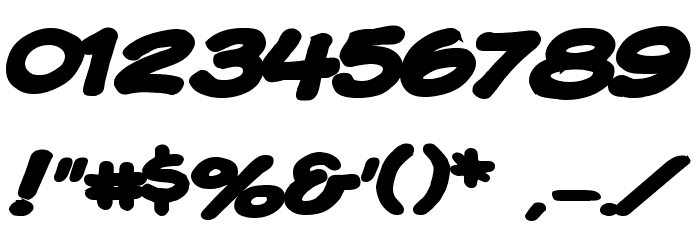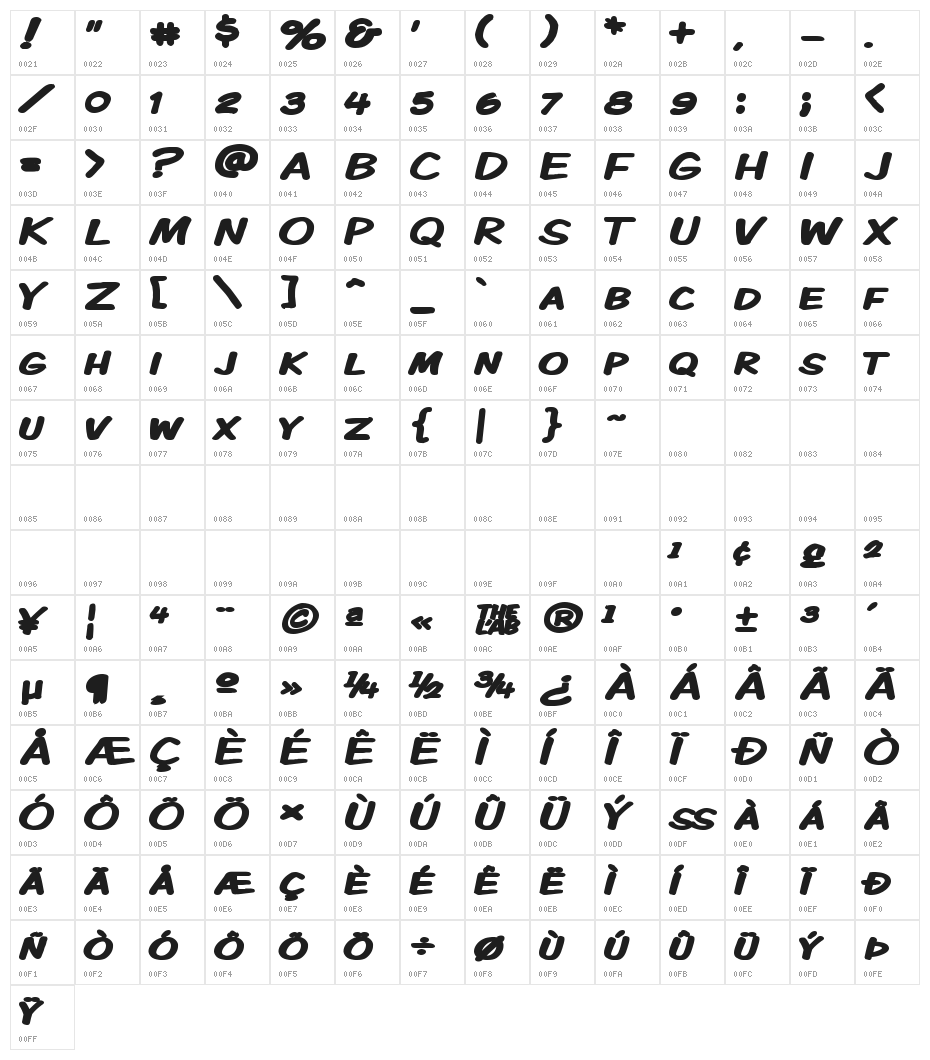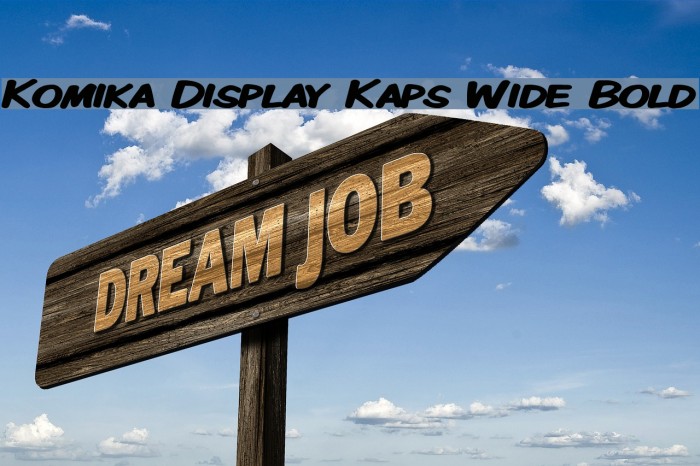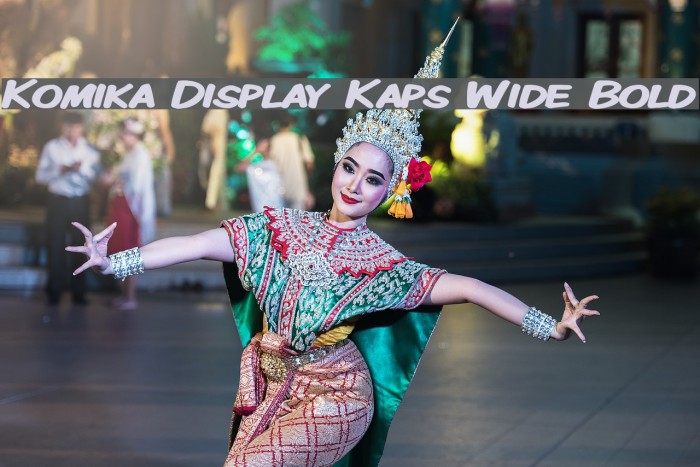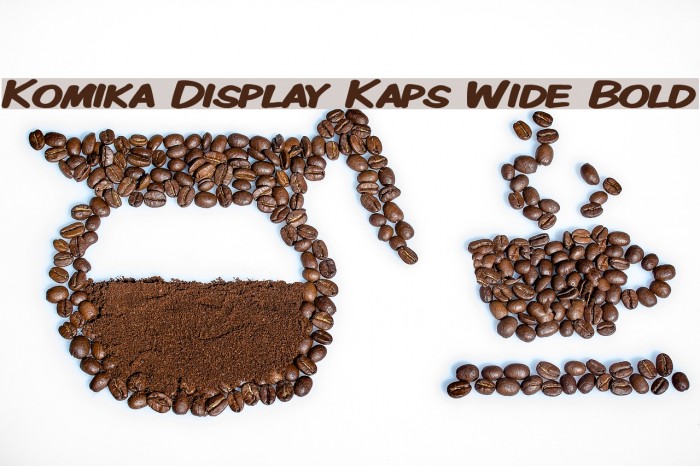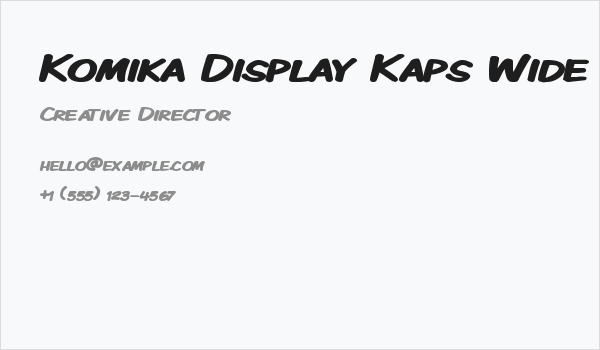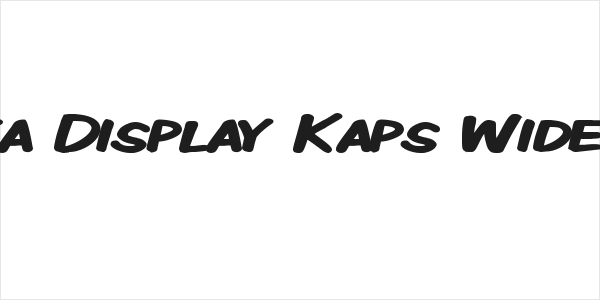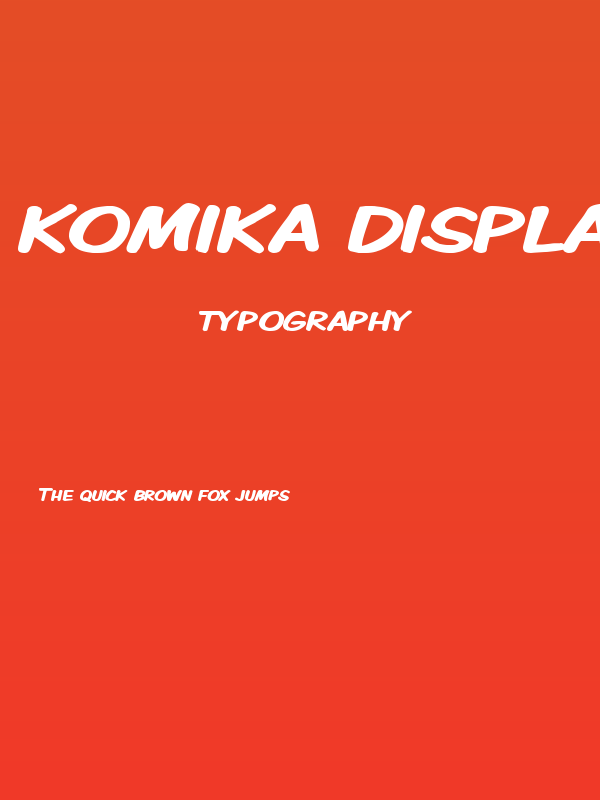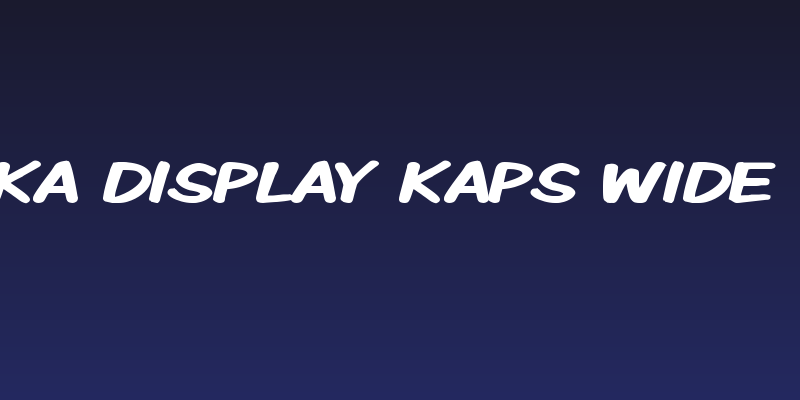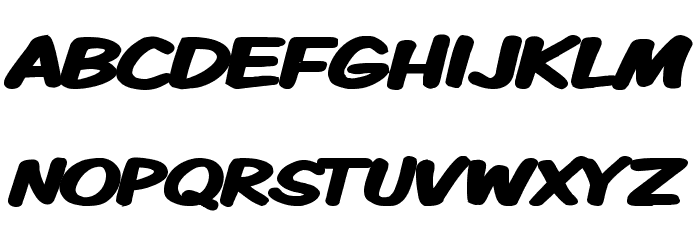
Komika Display Kaps Wide Bold Font
Komika Display Kaps Wide Bold Description
This font features a bold and playful style with a distinctly wide and rounded appearance. The characters are designed with a smooth, flowing quality that gives them a cartoonish and lively feel. The uppercase letters are consistent in height and width, providing a uniform look, while the lowercase letters maintain the same playful characteristics. The numbers and special characters follow the same design principles, ensuring a cohesive appearance across all glyphs. The boldness of the font makes it stand out, while the wide spacing between characters adds to its readability. This font is ideal for projects that require a fun and engaging visual element.
| Overall Style | Playful, Cartoonish |
| Proposed Projects | Ideal for comic books, children's books, playful branding, and posters. |